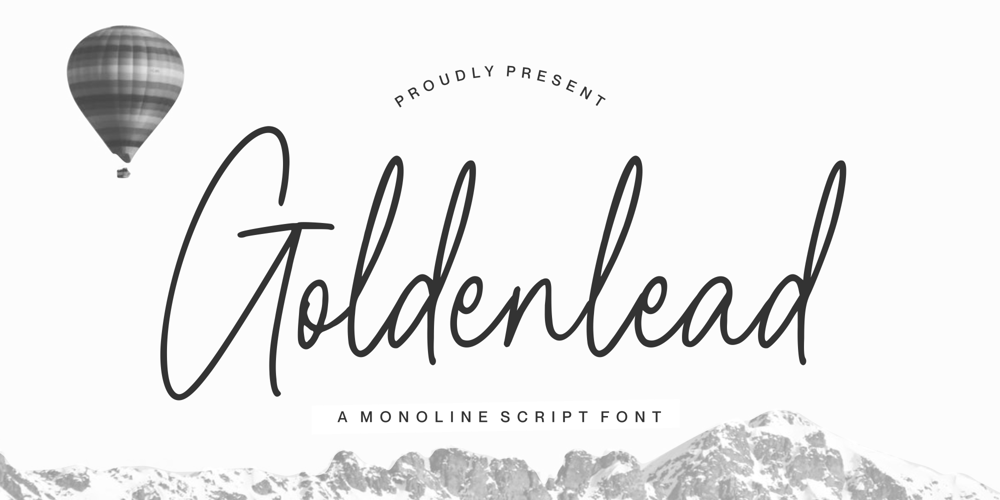
Goldenlead Font Family was designed by Fachrizal Yusuf and published by Allouse Studio. Goldenlead contains 1 styles and family package options. Proudly Presenting, Goldenlead Beautiful Monoline Script Font.Goldenlead is perfect for any titles, logo, product packaging, branding project, megazine, social media, wedding, or just used to express words above the background.Goldenlead also come with Multi-Lingual Support.Enjoy the font, feel free to comment or feedback, send me PM or email. Thank You!